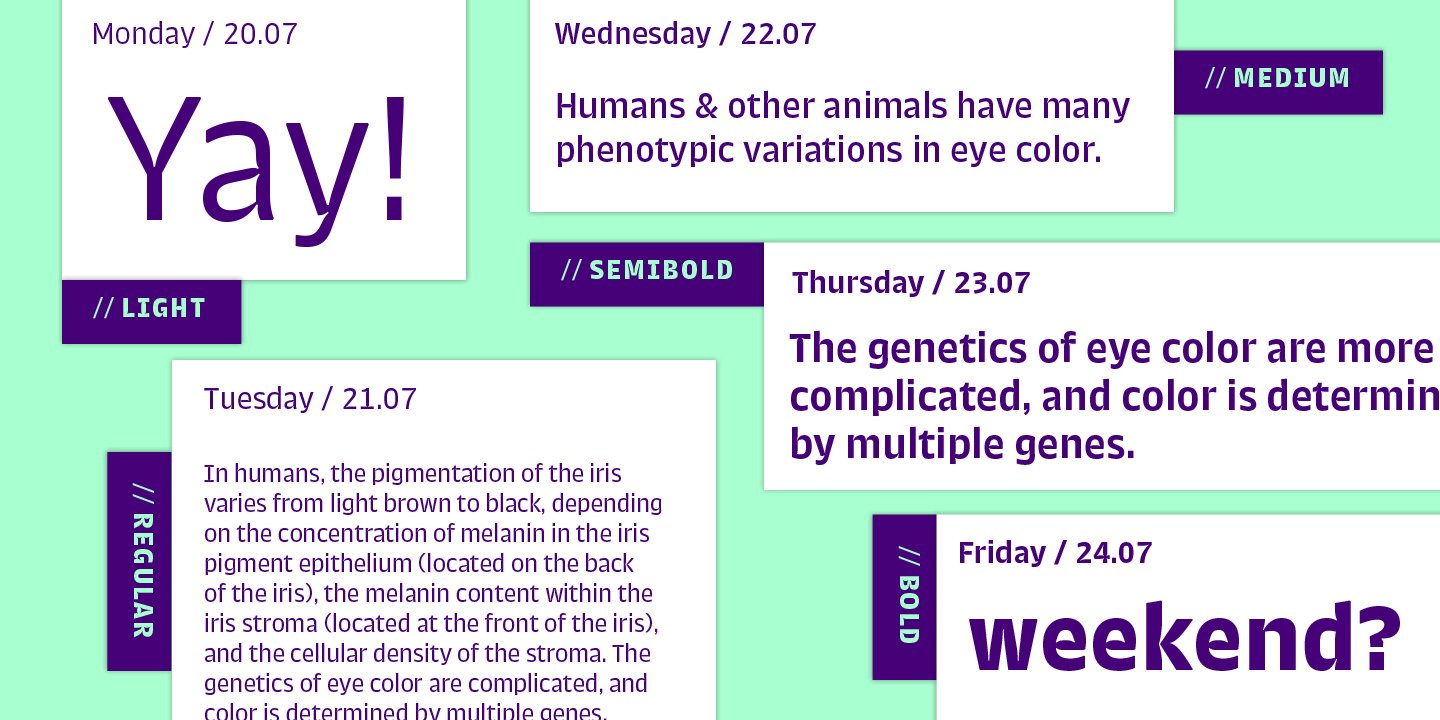
Trench Sans Font is perfect for military contractors, defense industry branding, tactical equipment packaging, security company logos, industrial manufacturing, construction site signage, heavy machinery graphics, automotive workshops, engineering firms, and rugged outdoor gear branding.
Trench Sans Font is exciting because it features robust, no-nonsense letterforms with strong geometric foundations and industrial-grade durability that convey reliability, strength, and professional competence, making it ideal for brands that need to communicate toughness and unwavering dependability.
The Trench Sans Font family includes multiple weights from Light to Black with matching oblique styles, condensed variants, and extended character support, providing comprehensive typographic solutions for demanding professional applications and complex design systems.
For projects requiring uncompromising strength and reliability, Trench Sans Font Free Download delivers military-grade typography with civilian versatility. This powerful sans-serif typeface combines tactical precision with everyday functionality, ensuring your communications command respect while maintaining excellent readability across all platforms. The sturdy letterforms and authoritative presence make this font an essential choice for industries where trust, durability, and professional competence are non-negotiable, whether you're designing for defense contractors, industrial manufacturers, or any brand that needs to project unwavering strength and reliability.